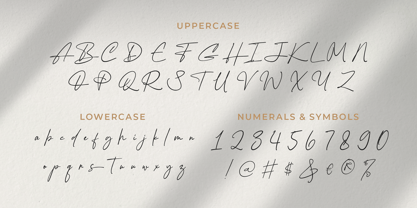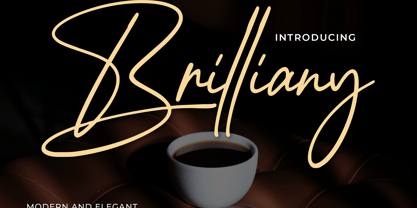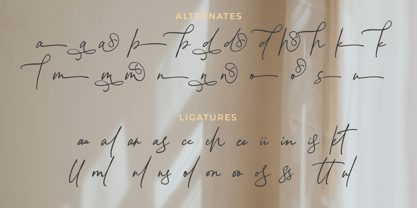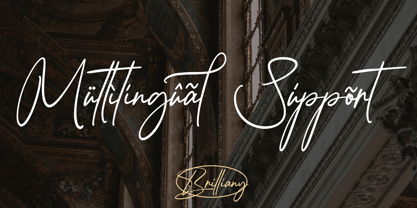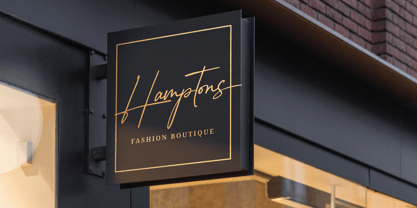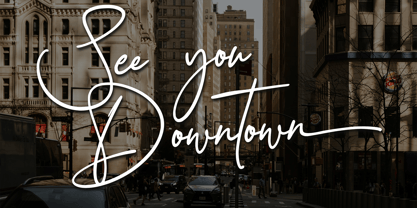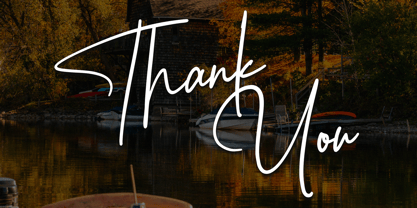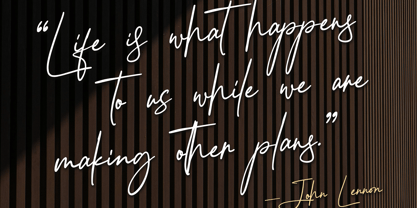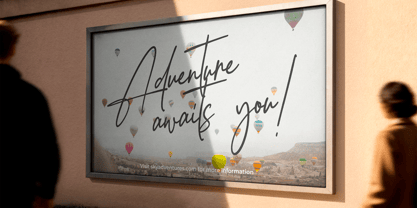
Brilliany
by Krafted
The Brilliany Font Family was designed by Heri Imanudin and published by Krafted. Brilliany contains 1 styles. More about this family
This expressive handwritten font brings energy and character to any project or promotion. Its natural flow adds a sense of movement that instantly makes your design feel more alive. Ideal for quotes, branding, social media posts, invitations, and more, Brilliany blends warmth with confidence through its smooth, stylish strokes — giving your visuals a personal and authentic touch.
Designers: Heri Imanudin
Current Foundry: Krafted